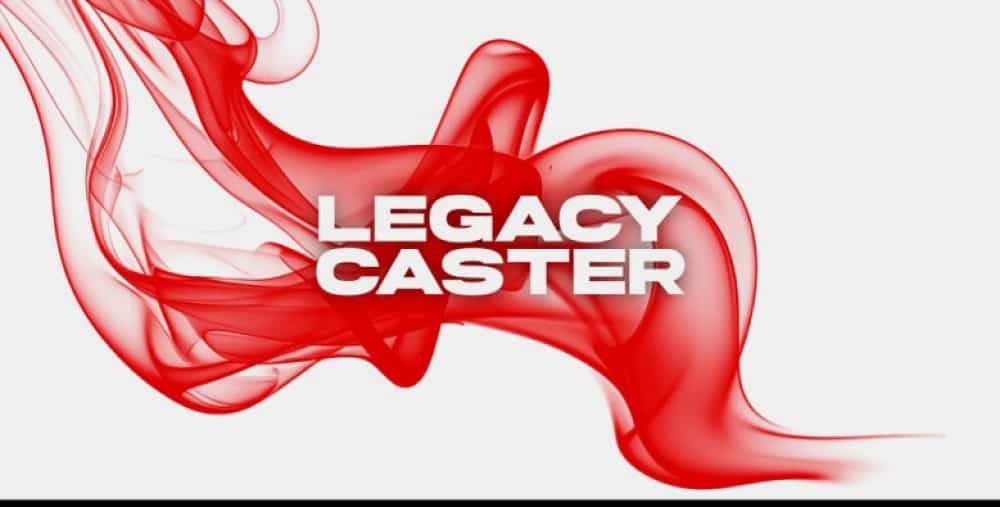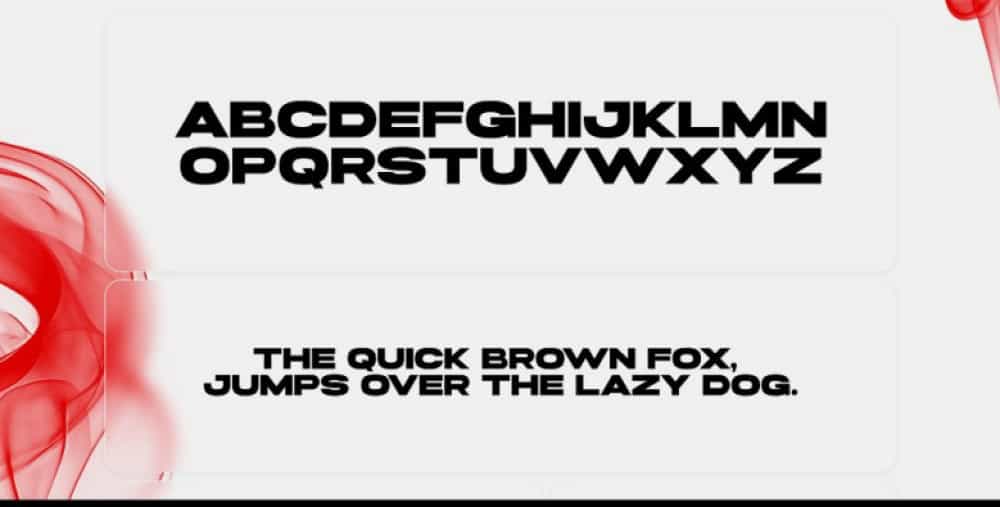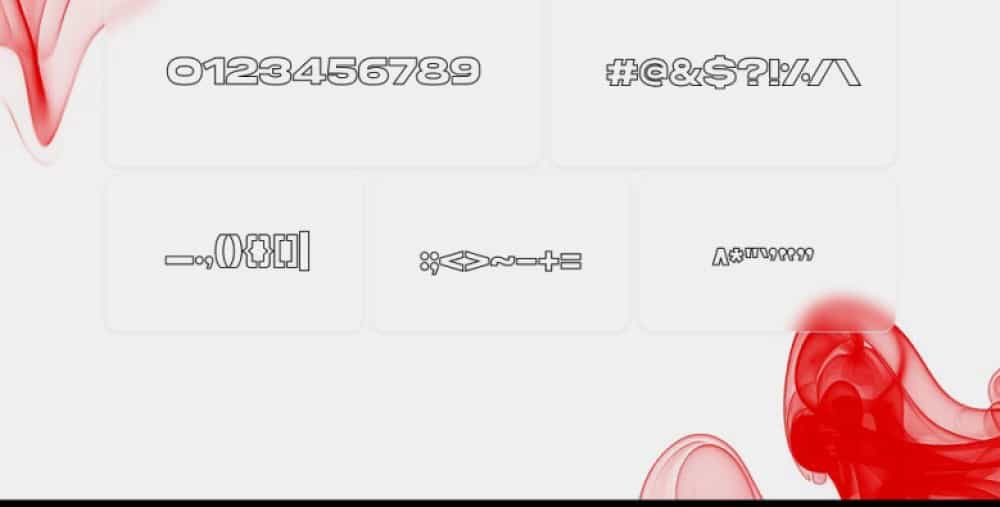
Legacy Caster is a heavy touch sans-serif font. Created by font designer named John Benedict Mangco; Font type: OTF, Font style: Regular. That gives it a rather pleasant feel, which creates an impression of support. This typeface is very suitable for magazines, posters, brand identity, web, and a lot of other applications.